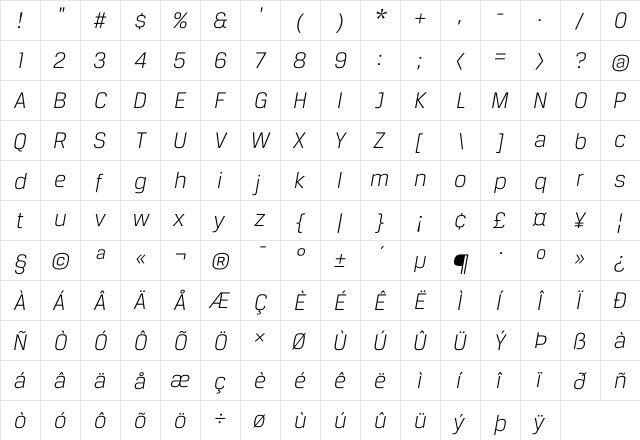
BreuerText Light Italic Font Preview
Design Context for BreuerText Typeface
BreuerText offers clean, dependable letterforms without strong stylistic allegiance, making it a practical choice for designers who need flexibility. Its italic angle brings a sense of urgency and motion to the letterforms. The delicate stroke weight brings airiness and refinement to layouts.
Pro Tip: Try BreuerText for annotation and caption copy alongside an upright companion — the contrast in angle creates a dynamic but ordered typographic system.